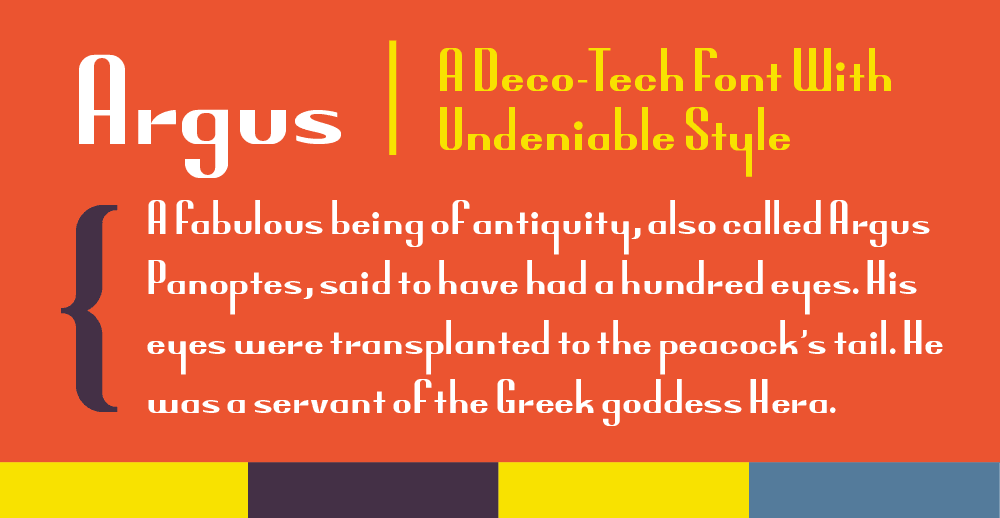
Argus
Argus is an art deco font published by Interrobang Type.
Argus is a font inspired by the company of its namesake, but morphed into something much more, which combines to form an oddly attractive combination of Art Deco and futuristic sensibilities.
Like most of my display faces, it is a logo machine. But it has a weirdly appealing and functional use in copy, so long as you know how to deal with leading. Also, look out for very-near-future releases of alternates with varying descender depths.